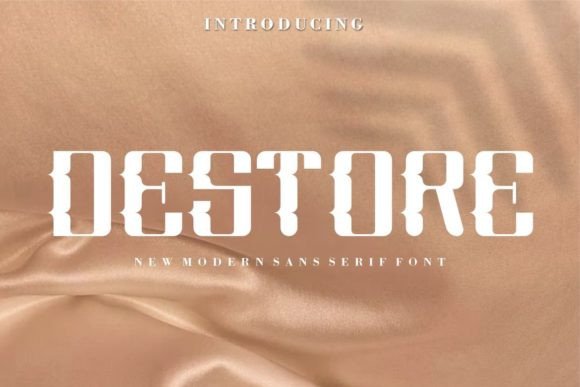
Dive into the world of Destore, a technological marvel that transforms your digital creations into masterpieces. This display font, crafted by the ingenious kalingga.albert., is an emblem of boldness and authenticity, designed to elevate your branding projects to unprecedented heights.
Destore's robust and confident strokes command attention, leaving an indelible mark on your audience. Its meticulously crafted curves and sharp angles exude a sense of professionalism and authority, making it the perfect choice for logos that demand recognition. Unleash your creativity and watch as Destore effortlessly elevates your brand identity to new heights.
Beyond logos, Destore's versatility shines through in various applications. Its captivating presence adds a touch of sophistication to t-shirt designs, captivating the attention of onlookers with its unique charm. Its bold lines translate seamlessly onto merchandise, transforming ordinary items into collector's pieces.
Destore's adaptability extends to the realm of exports, ensuring that your creations retain their brilliance across platforms and applications. Its cross-compatibility ensures seamless integration into your workflow, allowing you to effortlessly share your designs with the world.
No matter the context, Destore shines. Its versatility allows it to adapt to a wide range of projects, from brochures and flyers to presentations and website designs. Its presence commands attention, leaving a lasting impression that lingers in the minds of your audience.
With Destore, your words take on a life of their own, captivating readers with its unique charm. Its distinctive style breathes life into technical documents, transforming them from mere text into engaging narratives that captivate and inform.
Destore is more than just a font; it's an experience that transforms your creative vision into reality. Its bold and authentic nature empowers you to make an unforgettable statement, leaving a mark on the world with every project you undertake. Embrace Destore today and unlock the limitless possibilities that await you.